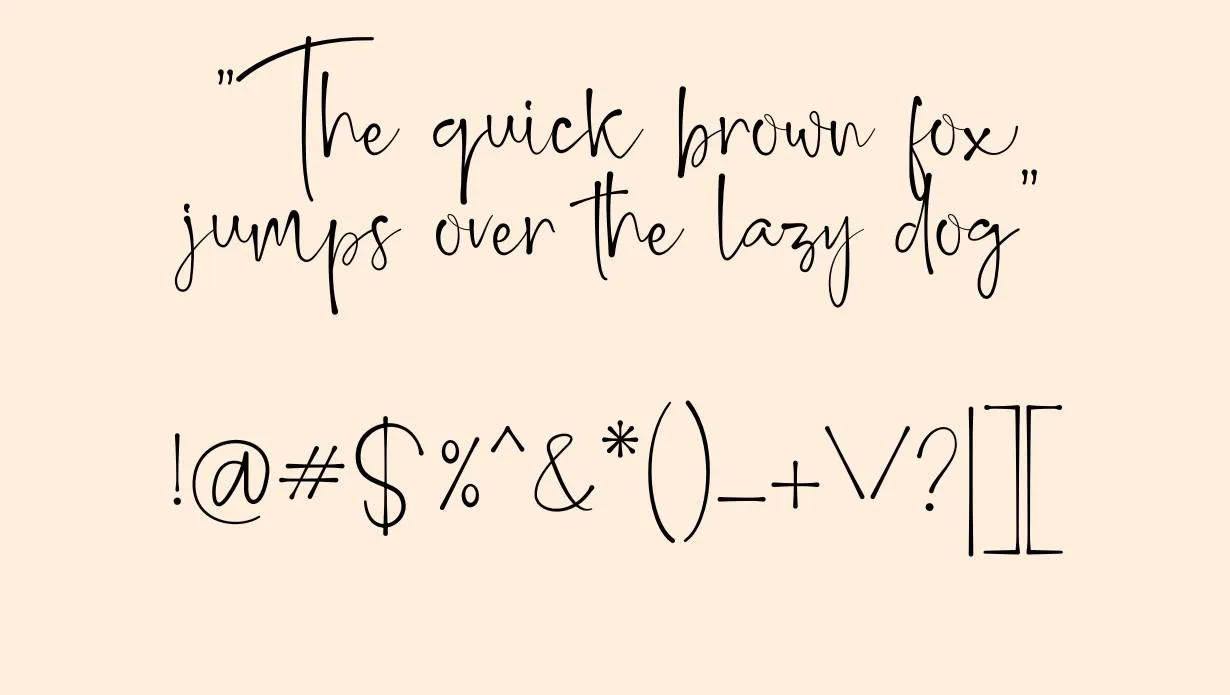
Belleson Luxury Script Font is all about opulence and flair. Its sweeping, cursive strokes evoke a sense of sophistication, making it an ideal choice for high-end invitations, branding, and fashion-related materials.
The script font’s moderate weight and varying widths add a dynamic flow to the text, creating a visually captivating experience. The technical details showcase its careful craftsmanship, ensuring that each character is a work of art in itself.
| Name | Belleson Luxury Script Font |
| Designer | Mario Arturo |